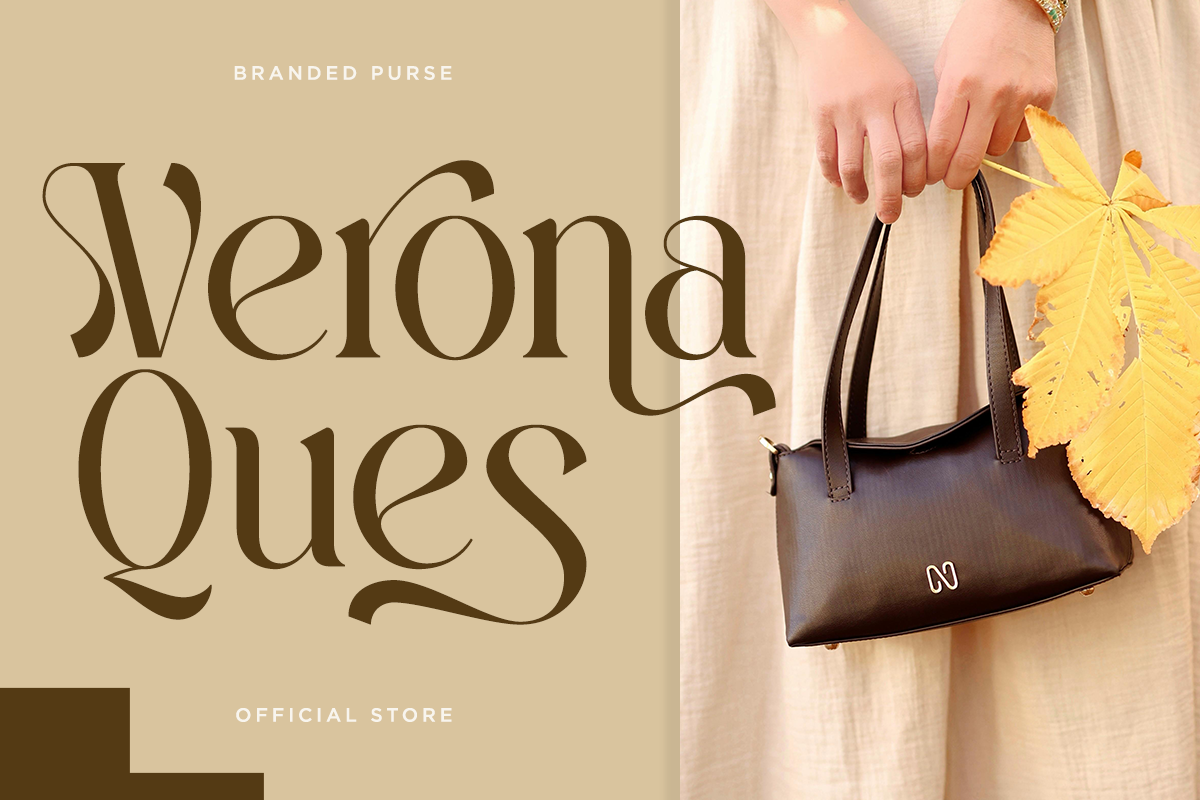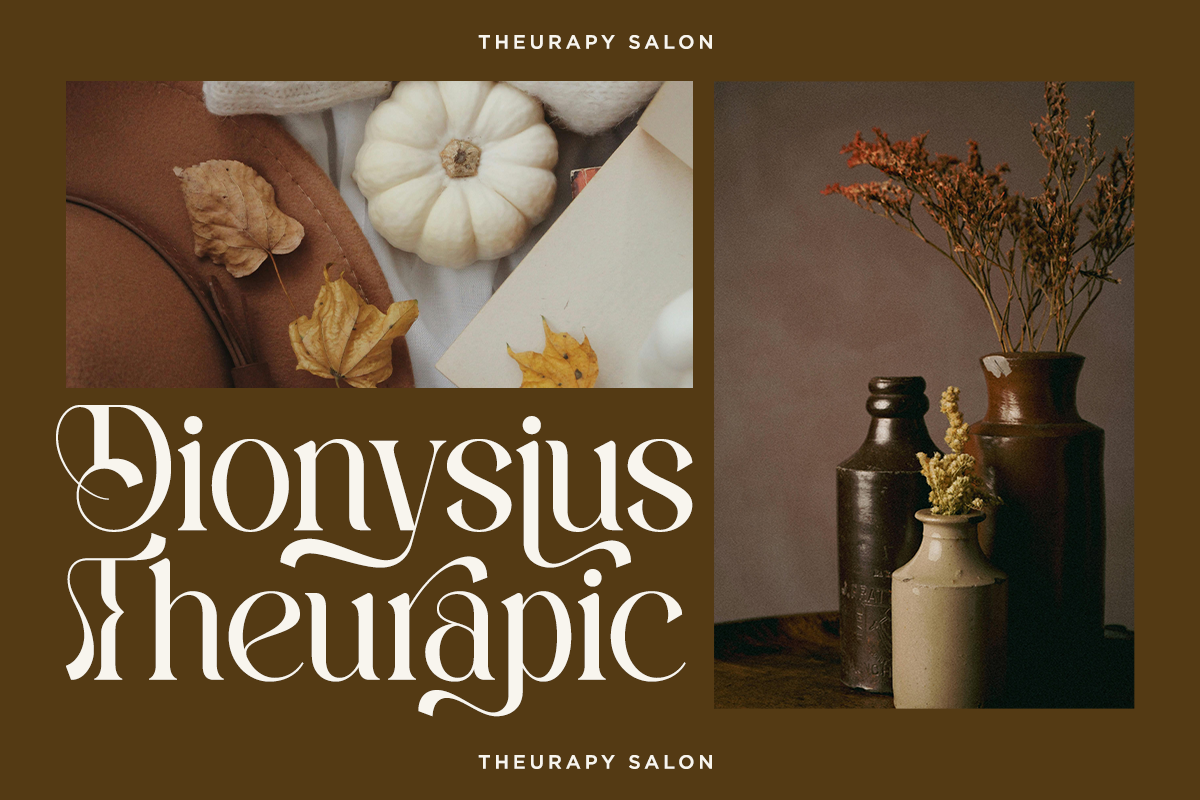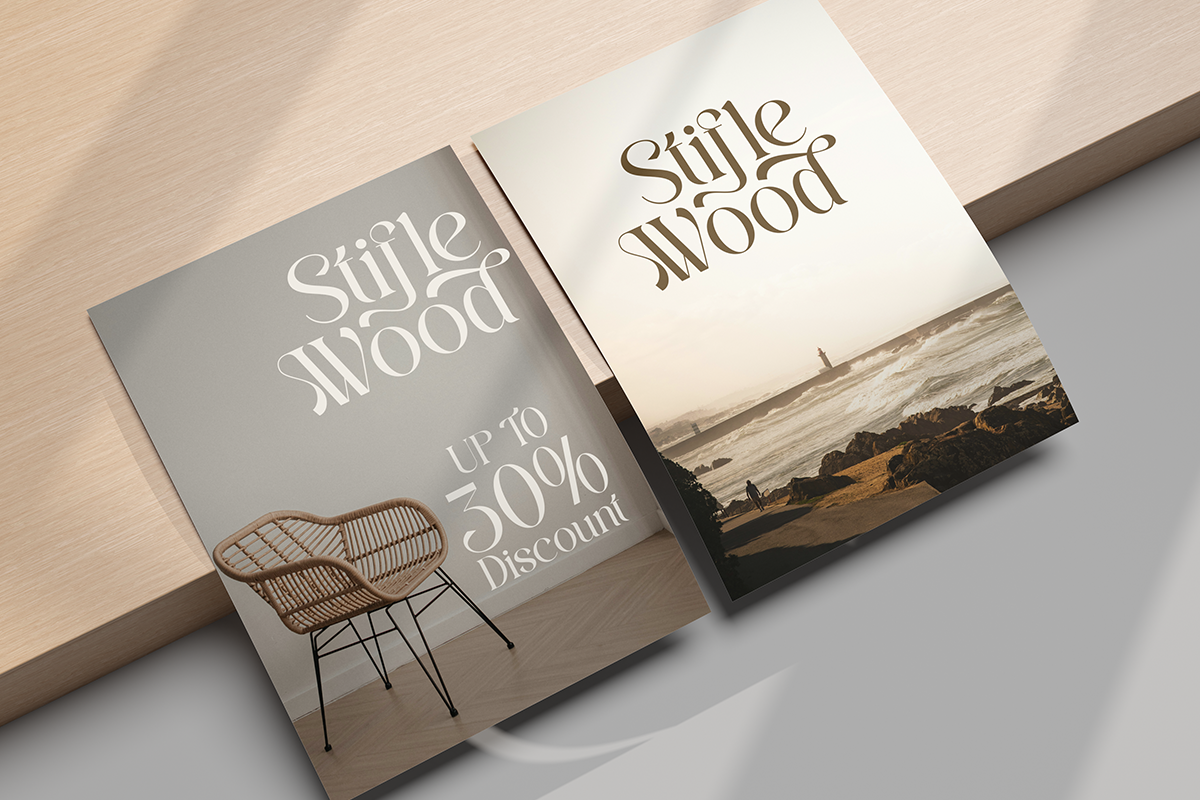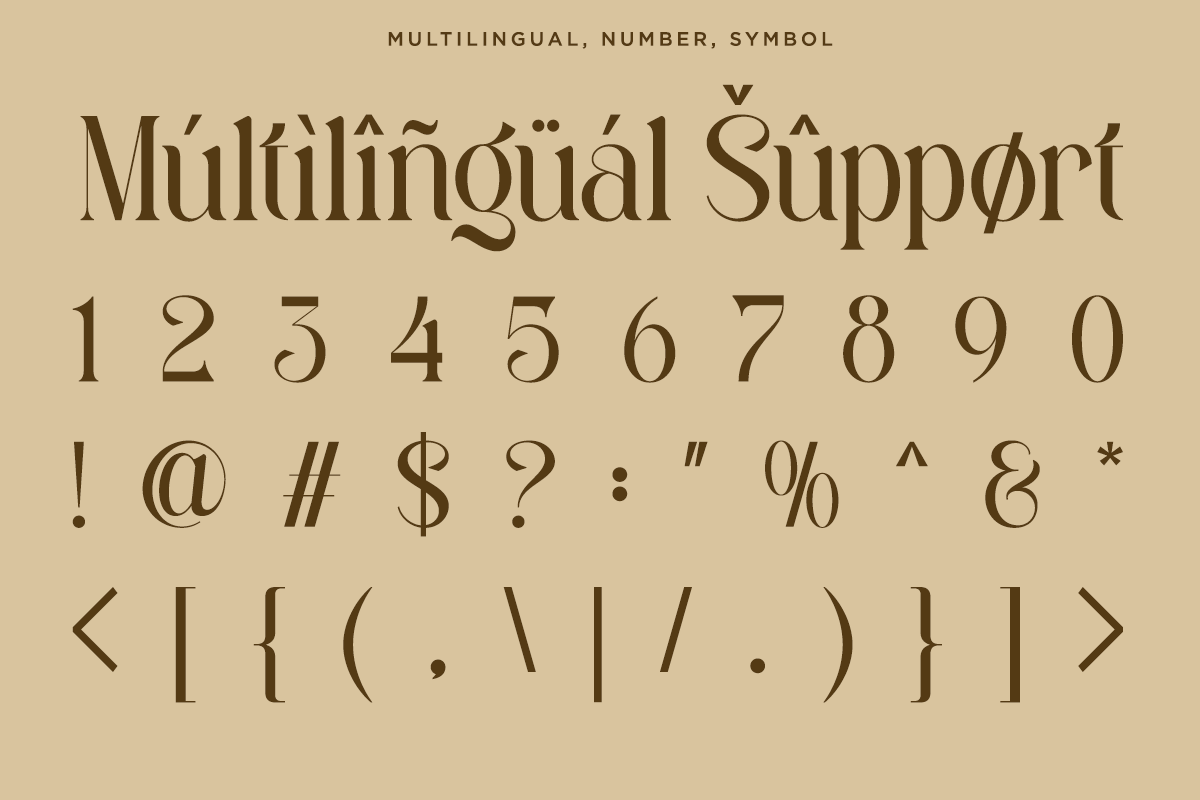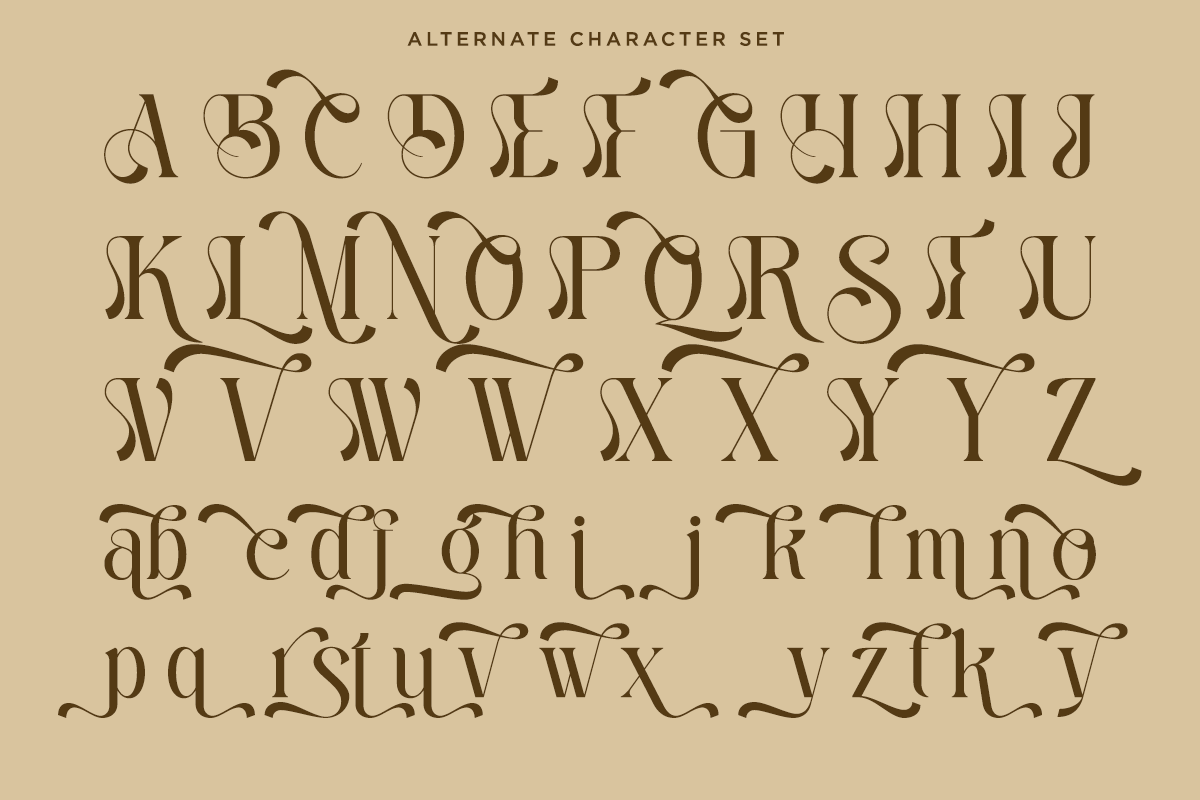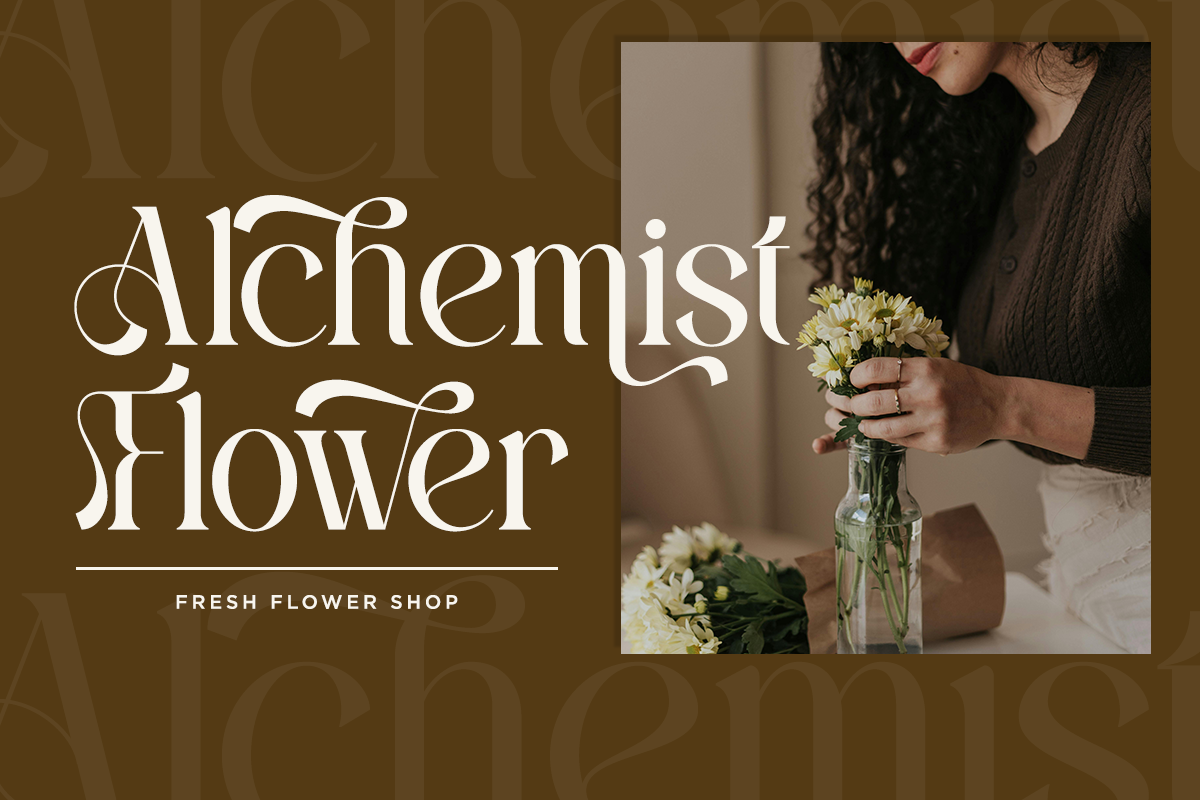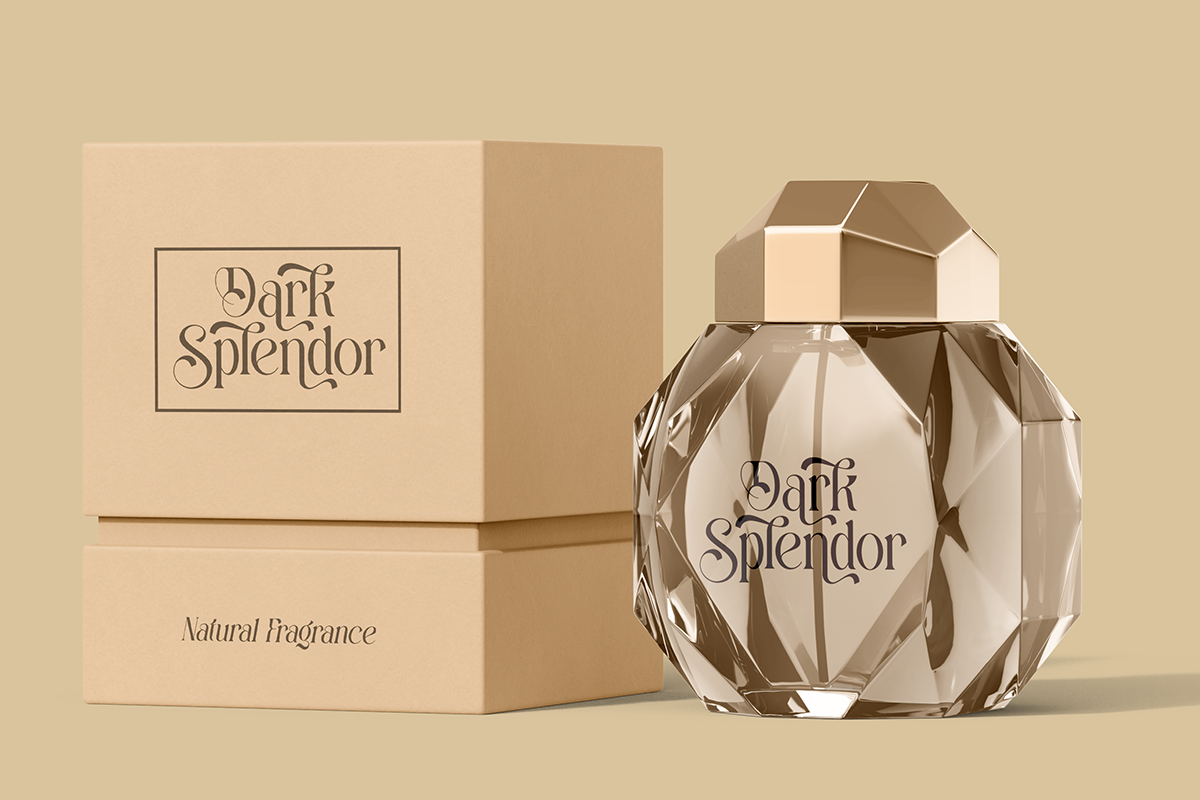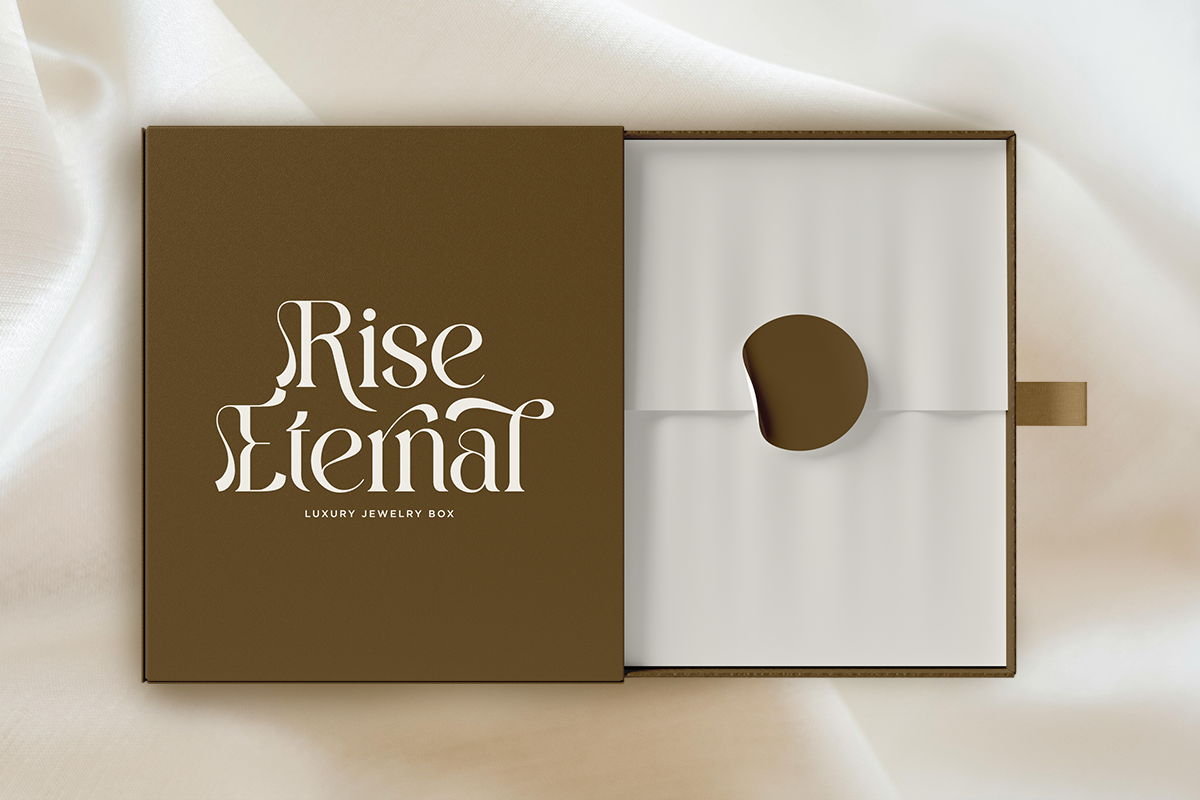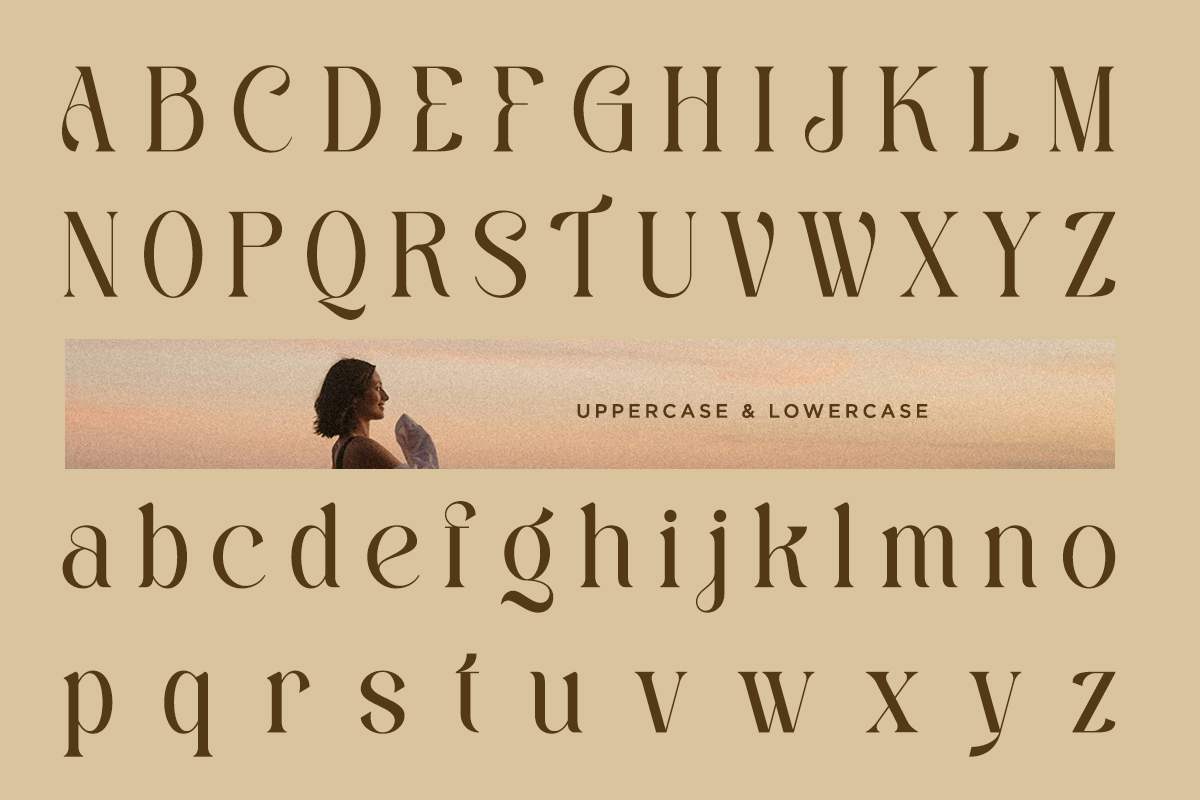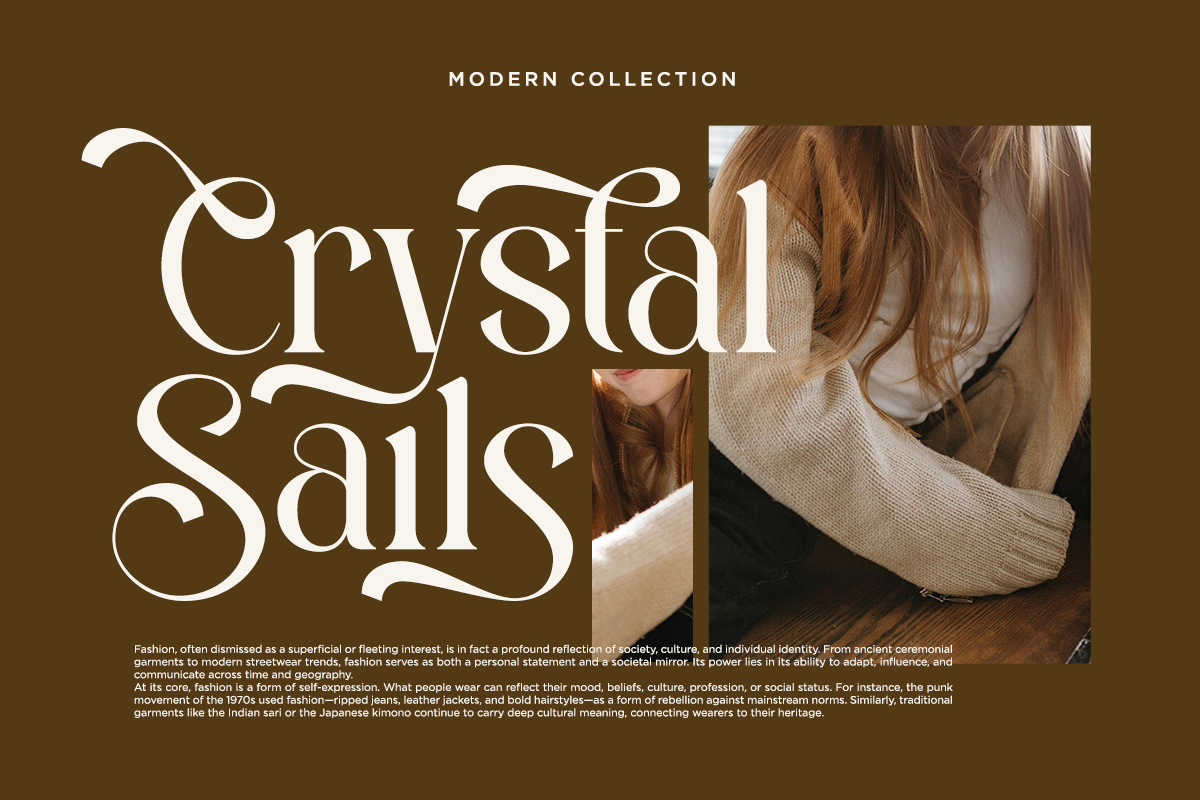
Harmony Dream - Decorative Serif
Introducing Harmony Dream – a sophisticated decorative serif that blends timeless elegance with modern charm. Designed to captivate at first glance, Harmony Dream is perfect for creatives who want to bring a luxurious and graceful feel to their work. Its high contrast strokes, unique swashes, and refined curves make it ideal for editorial design, fashion branding, logos, wedding invitations, and any project that seeks a balance between classic and contemporary aesthetics.
- Stylish Alternates
- Symbol, Number, Multilingual